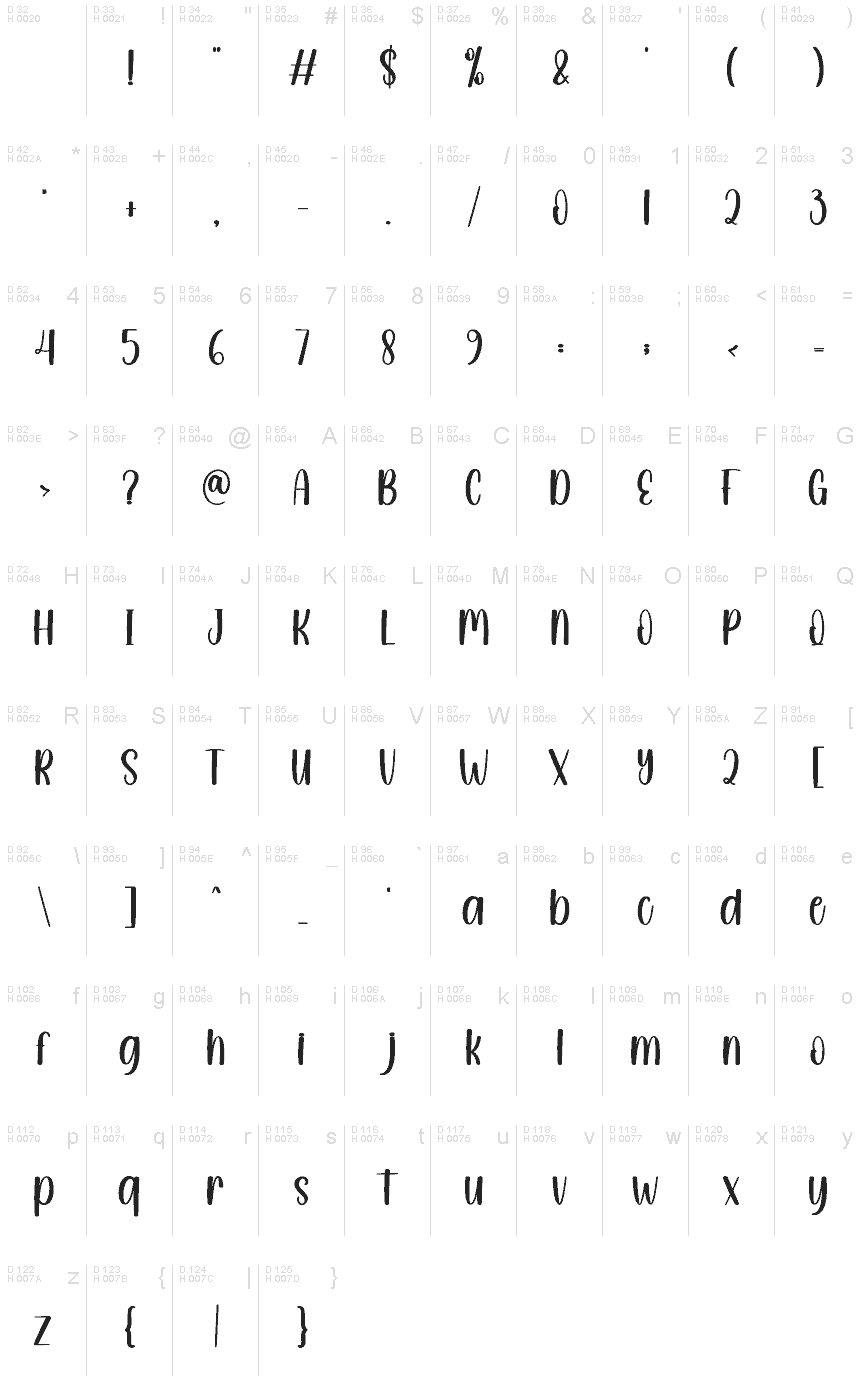
The Funky
\nThe Funky font. This free brush font designed by Andi Moz is a condensed one with whimsical and expressive visuals. Strokes here are modern in appeal, casual in elegance, and lively in character. All of these make each letter stand out on its own while being immersive as a whole.
Use The Funky on commercial signs for beauty stores or supermarkets, business card designs, adverts, newsletter titles, branding designs for food companies or clothing lines like t-shirts and hoodies. Use it for typography art if you want to use it artistically!